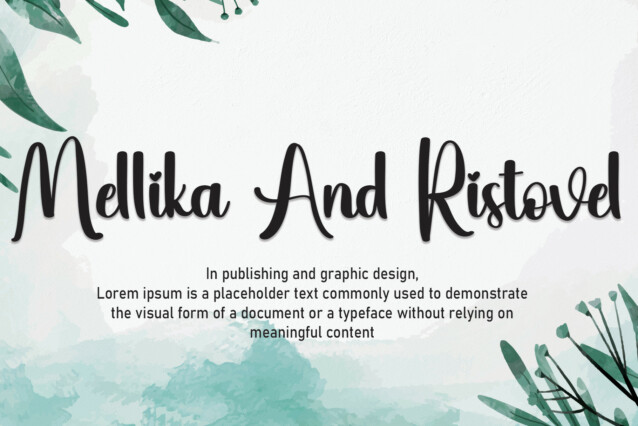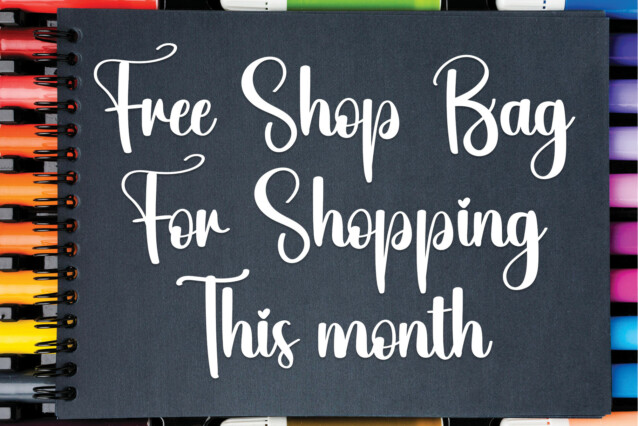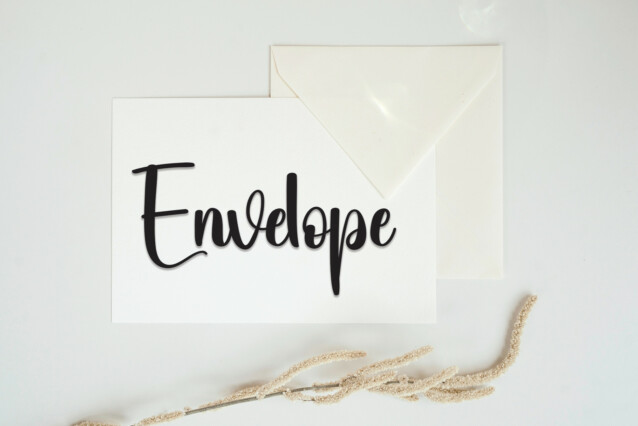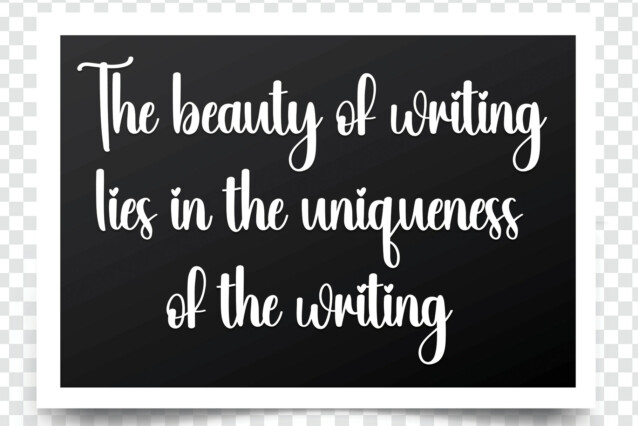
Sublimation Calligraphy Font
Sublimation Calligraphy Font is a unique and elegant handwritten font. It looks beautiful on a variety of designs requiring a personalized style, such as wedding invitations, thank you cards, greeting cards, logos, and so on.